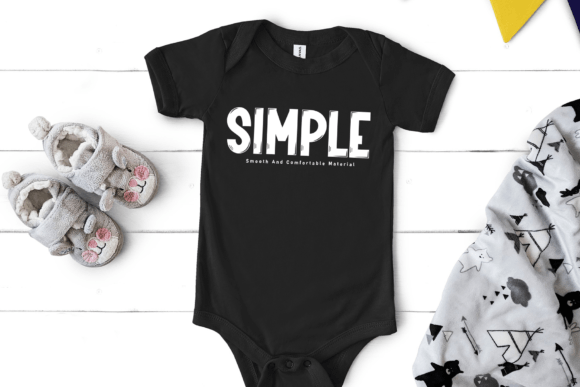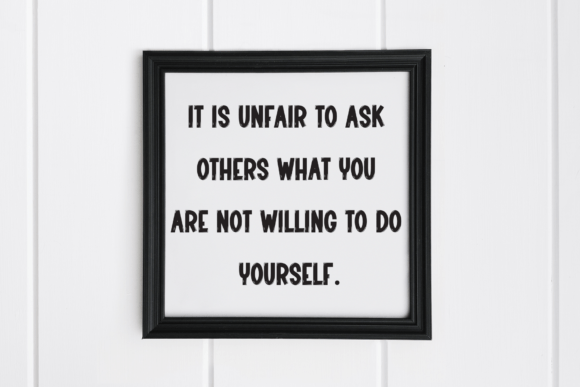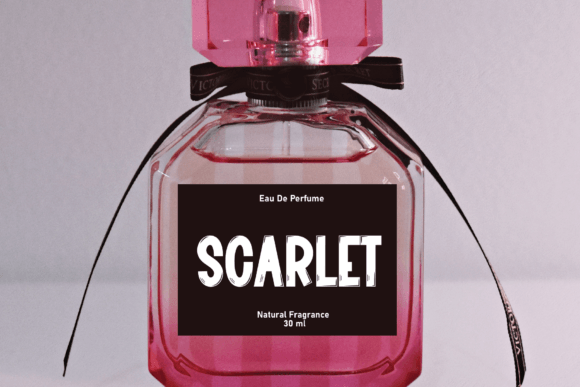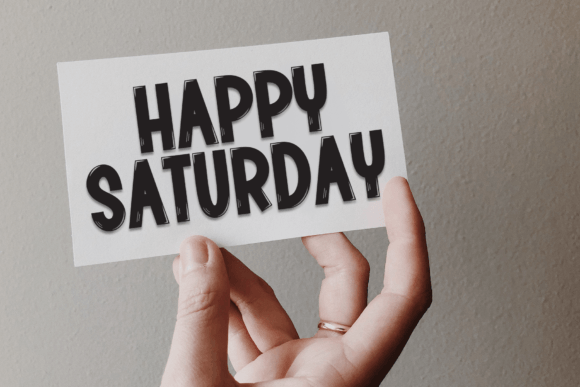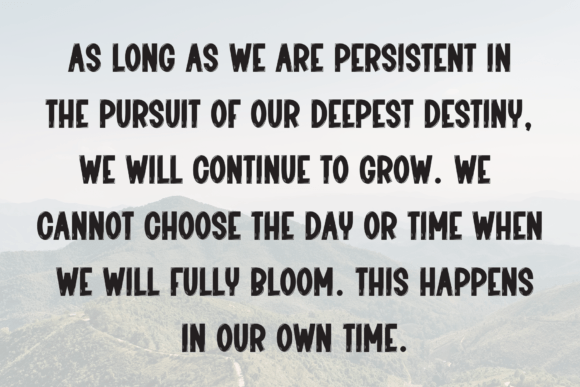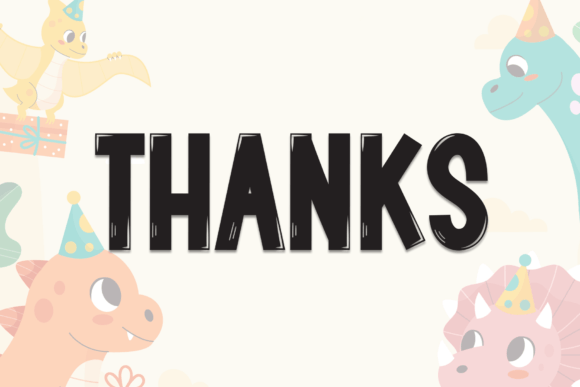
Dino Cartoon Font: The Ultimate Design Companion for Creative Minds
Are you a designer, crafter, or DIY enthusiast looking for a font that can add a touch of whimsy and friendliness to your projects? Look no further than the Dino Cartoon Font! This sweet and friendly handwritten font is perfect for a wide range of designs, from kids’ party invitations to branding materials, and everything in between.
What Makes Dino Cartoon Font So Special?
Dino Cartoon Font boasts a natural and unique style that makes it incredibly versatile. Its handwritten charm and bubbly personality can instantly elevate your designs and make them more engaging. Whether you’re creating digital content, print materials, or craft projects, this font is sure to become your new go-to companion.
The font’s design is characterized by its smooth, flowing lines and rounded edges, giving it a soft and approachable feel. The letters are carefully crafted to look like they were written with a marker or a pen, adding a personal touch to your designs. The overall effect is a font that exudes warmth, friendliness, and playfulness.
Endless Design Possibilities with Dino Cartoon Font
The beauty of Dino Cartoon Font lies in its incredible flexibility. Its unique style can be used in a multitude of design projects, including:
- Kids’ party invitations and decorations
- Digital planners and journals
- Craft projects, like handmade cards and scrapbooking
The only limit to what you can create with Dino Cartoon Font is your imagination! Whether you’re a professional designer or a DIY enthusiast, this font is sure to inspire you to try new things and push the boundaries of your creativity.
Why Choose Dino Cartoon Font?
So, what sets Dino Cartoon Font apart from other fonts on the market? Here are just a few reasons why designers and crafters love this font:
- Unique and eye-catching design: Dino Cartoon Font has a one-of-a-kind style that’s sure to grab attention and make your designs stand out.
- Easy to read and use: The font is clear, legible, and easy to work with, making it perfect for both digital and print projects.
- Highly versatile: Dino Cartoon Font can be used in a wide range of designs, from formal to informal, and from digital to print.
- Perfect for kids’ designs: The font’s playful and whimsical style makes it ideal for designs aimed at kids, such as party invitations, children’s books, and educational materials.
Tips for Using Dino Cartoon Font
To get the most out of Dino Cartoon Font, here are a few tips to keep in mind:
- Experiment with different colors and textures: The font’s playful style lends itself well to bright, bold colors and fun textures.
- Mix and match with other fonts: Dino Cartoon Font pairs well with other fonts, so don’t be afraid to combine it with other styles to create a unique look.
- Use it for headlines and titles: The font’s bold and playful style makes it perfect for headlines and titles, adding a touch of personality to your designs.
In conclusion, Dino Cartoon Font is a sweet and friendly handwritten font that’s perfect for designers, crafters, and DIY enthusiasts. Its natural and unique style makes it incredibly versatile, and its playful personality is sure to add a touch of whimsy to your designs. So why wait? Give Dino Cartoon Font a try today and see the amazing things you can create!